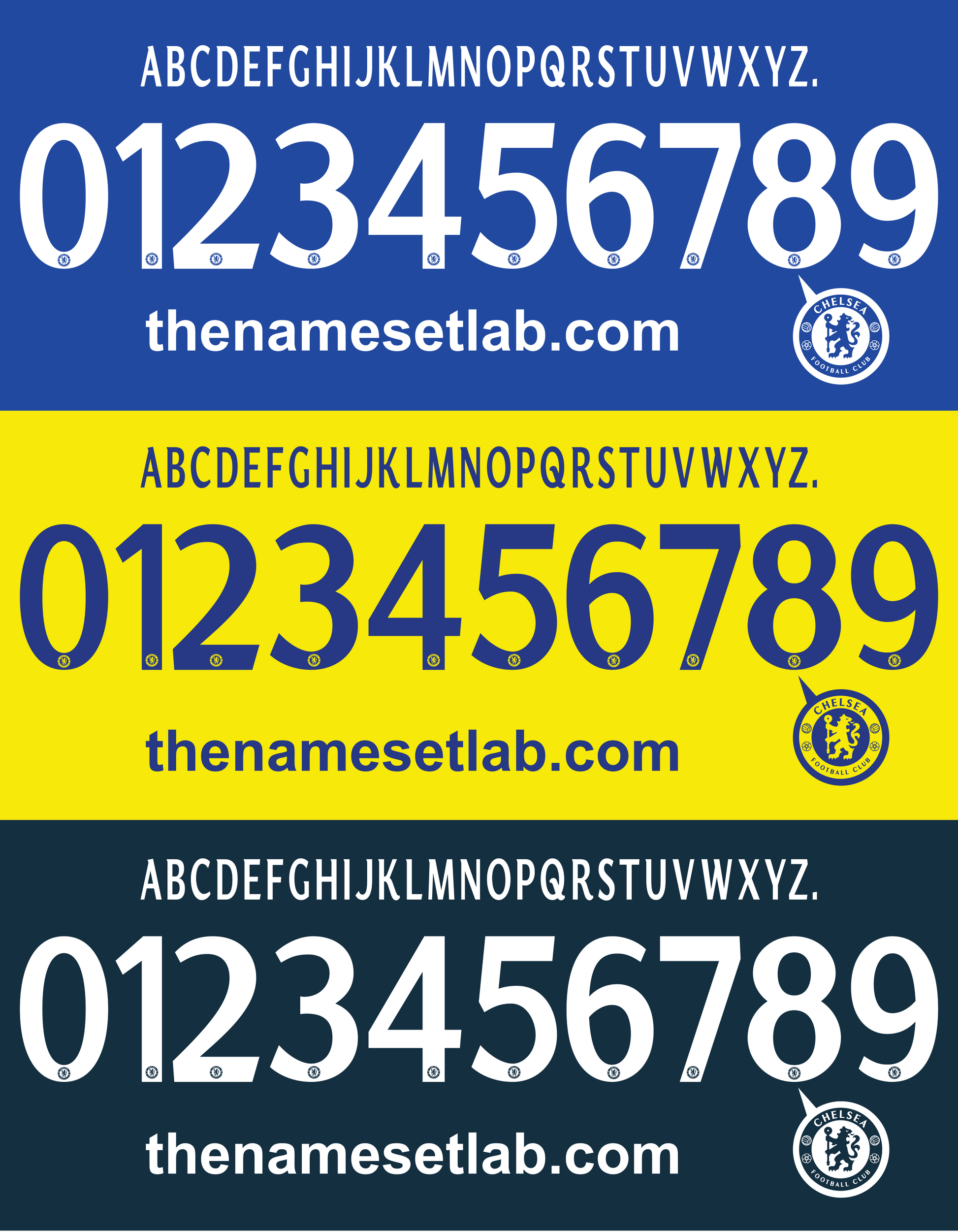
Chelsea 2014-2015 UCL / Cup Font Nameset AI Vector File
Grab this Chelsea 2014-2015 UCL / Cup nameset as a fully editable .ai vector file. Featuring the Classic Premier font style, it’s ideal for replicating Champions League or cup shirts, crafting personal projects, or expanding your retro football design collection.